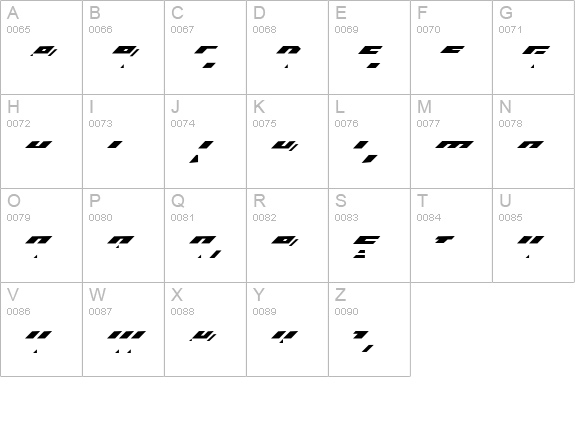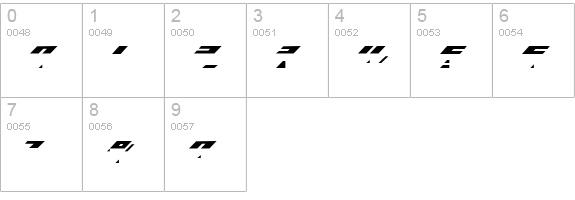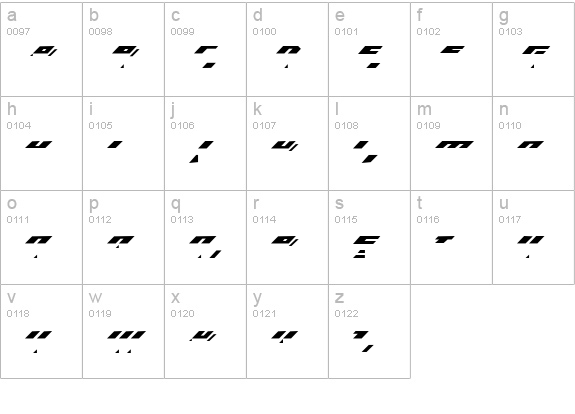
BlockedTop Font Details
Introducing BlockedTop font, a bold and modern typeface that commands attention with its striking aesthetic. This unique font features sharp angles and clean lines, giving it a distinctive and edgy look perfect for making a statement in your designs. BlockedTop is versatile and can be used for a variety of projects, from branding to posters to social media graphics. The best part? BlockedTop is completely free to download at FontsMarket.com. Whether you're a professional designer looking for a new font to add to your collection or a hobbyist exploring different typography options, BlockedTop offers a fresh and contemporary style that will elevate your work. Don't miss out on this opportunity to enhance your designs with the eye-catching BlockedTop font – download it today and unleash your creativity!